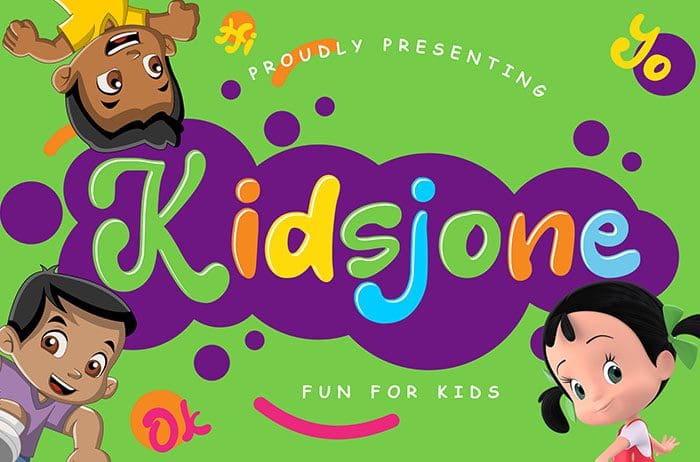
Kidsjone Display Font
Kidsjone is a Display Font for kid’s event needs which suits posters, flyers, and brochures. Kidsjone is perfect for branding projects, logos, and more. Thanks to Creatype Studio for sharing this font! Take a look at this portfolio for more of his stunning fonts.